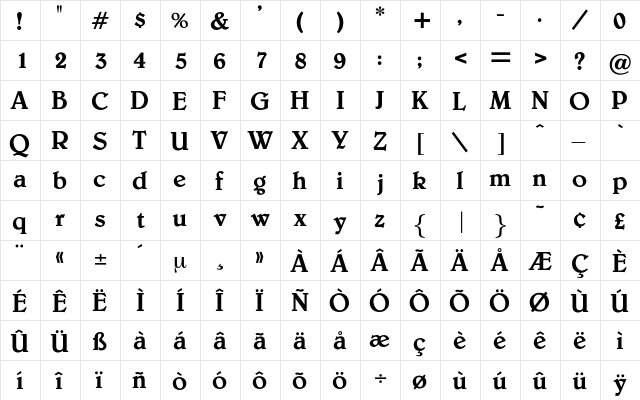
Bienvenue Regular
Design Context for Bienvenue Typeface
Bienvenue takes a measured approach to typography — its balanced proportions and neutral character make it a reliable workhorse for both digital and print work.